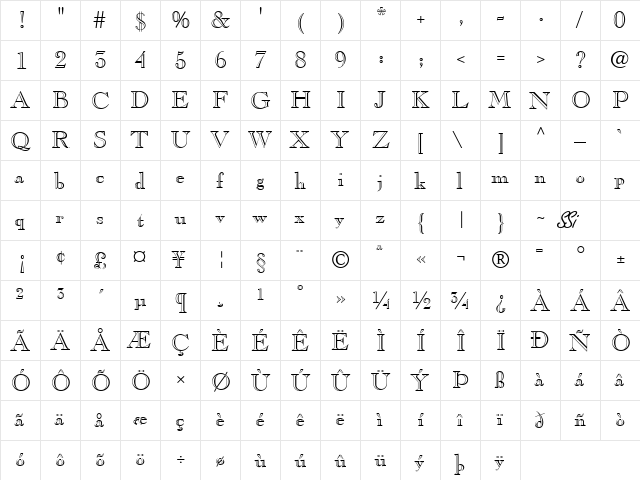
Caslon Open Face SSi Regular
Design Context for Caslon Open Face SSi Typeface
Caslon Open Face SSi is a composed and adaptable typeface that performs quietly and consistently across a wide range of design contexts.